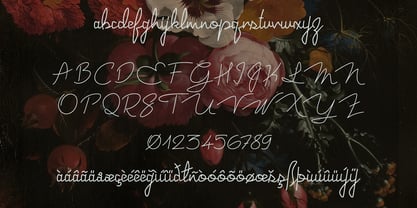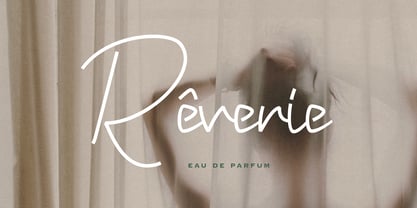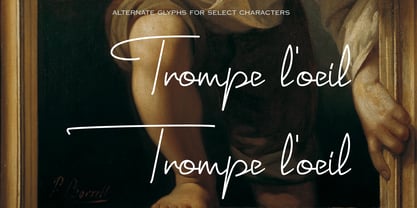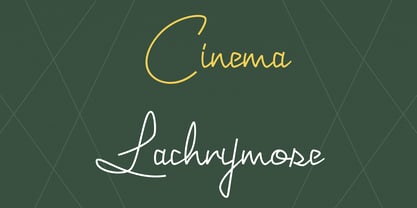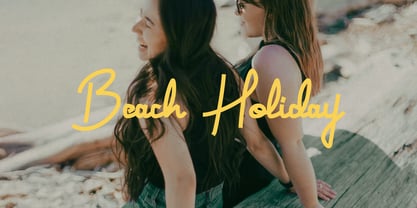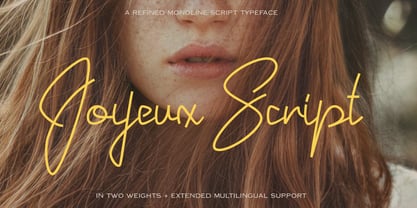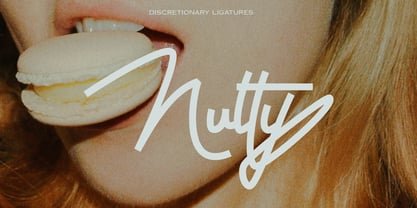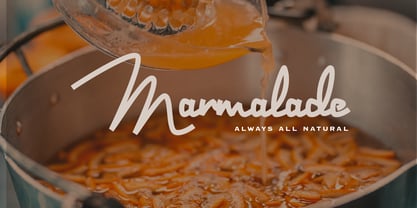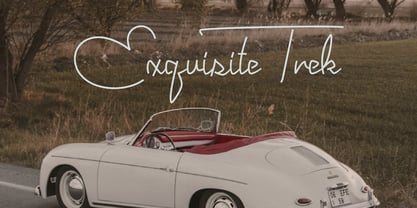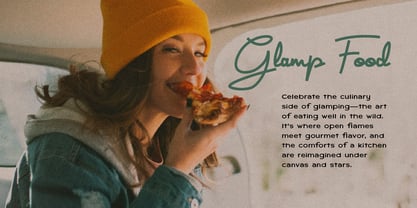
Joyeux Script
by Elyas Beria
The Joyeux Script Font Family was designed by Elyas Beria and published by Elyas Beria. Joyeux Script contains 2 styles.
Joyeux© Script is a refined script typeface inspired by the elegance and optimism of mid-century modern design. It combines geometric clarity with fluid rhythm—balancing precision and warmth in equal measure. The letterforms draw from the clean lines and graceful curves of modernist lettering, resulting in a script that feels both timeless and contemporary. With its effortless flow and architectural simplicity, Joyeux Script carries a sense of motion and restraint—structured enough for modern layouts, yet fluid enough to feel alive on the page. Available in Regular and Bold weights, it adapts seamlessly to a range of applications—from editorial layouts and logos to packaging, signage, and identity systems that celebrate mid-century aesthetics. Features: • Two weights: Regular & Bold • Geometric, modernist script construction • Extended multilingual support • Numerals, punctuation, and symbols • Optimized for both print and digital use • Alternates and discretionary ligatures Ideal For: Brand identity, editorial design, product packaging, signage, and modern lifestyle applications inspired by mid-century design principles. © 2023